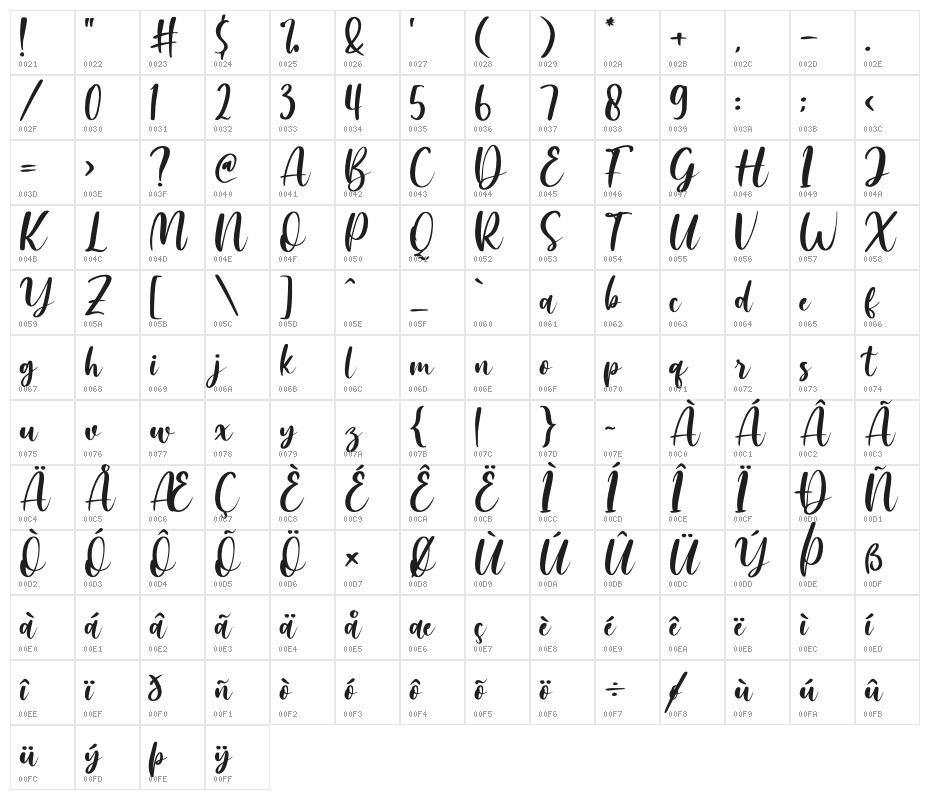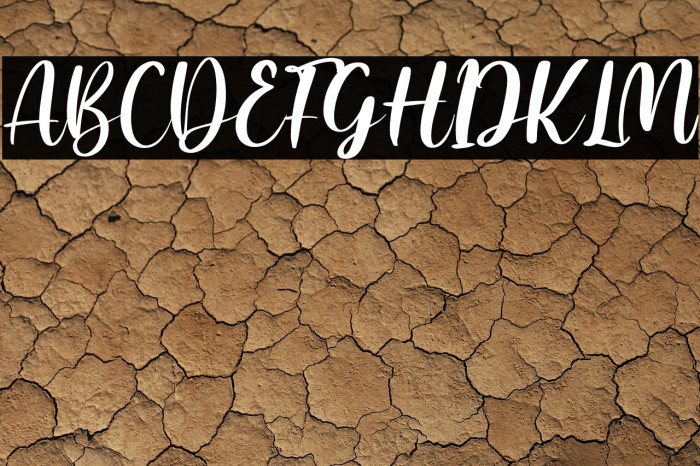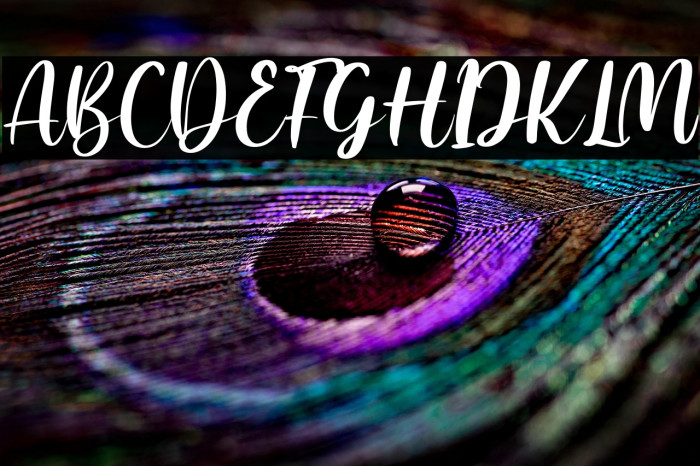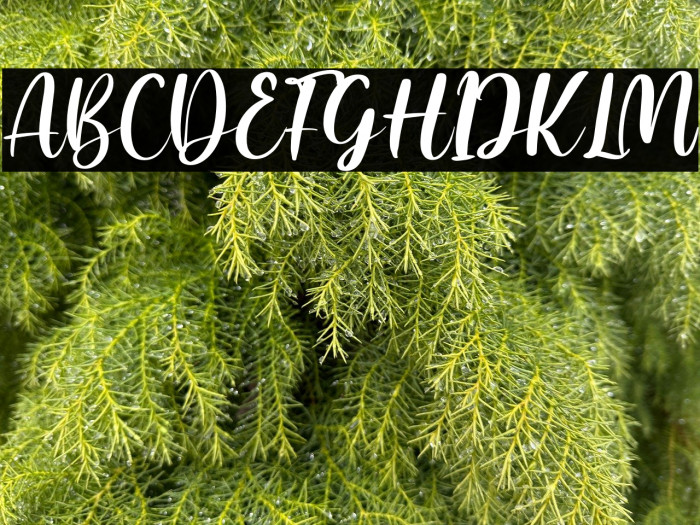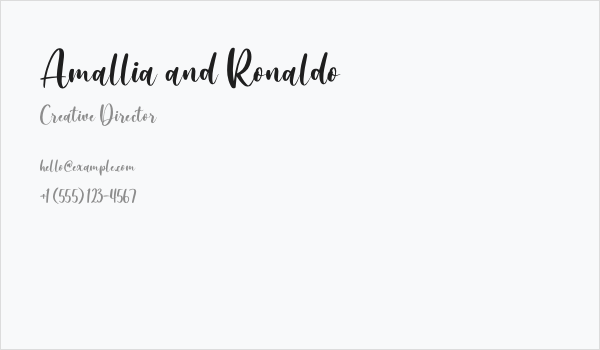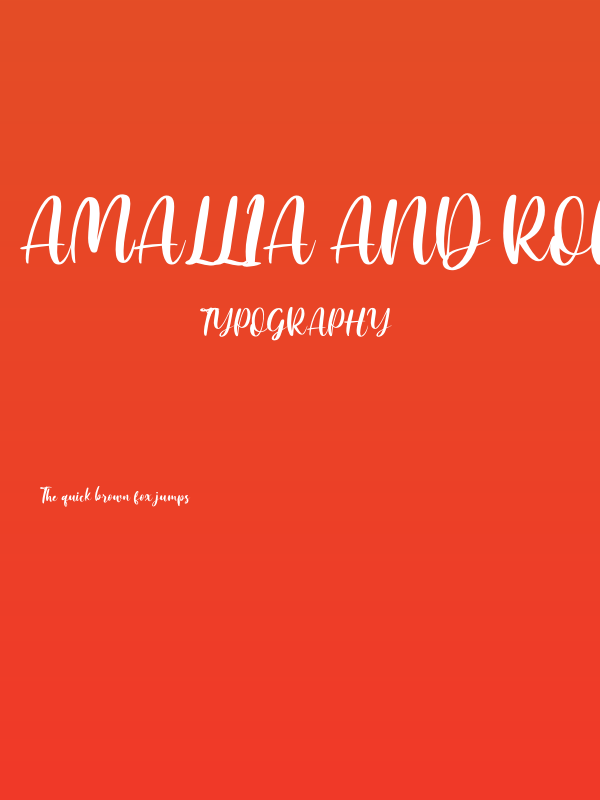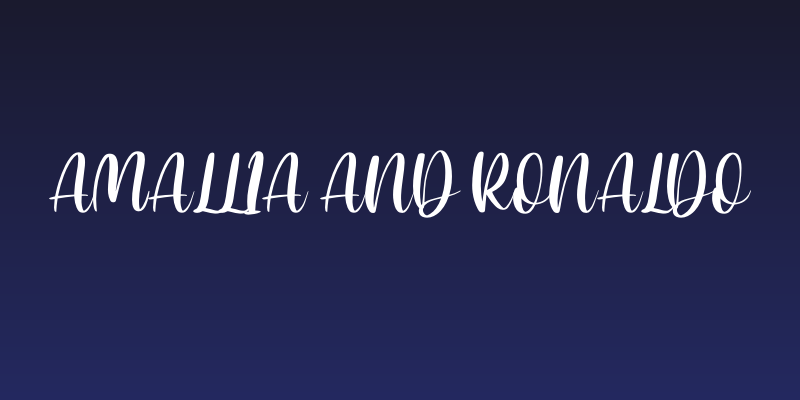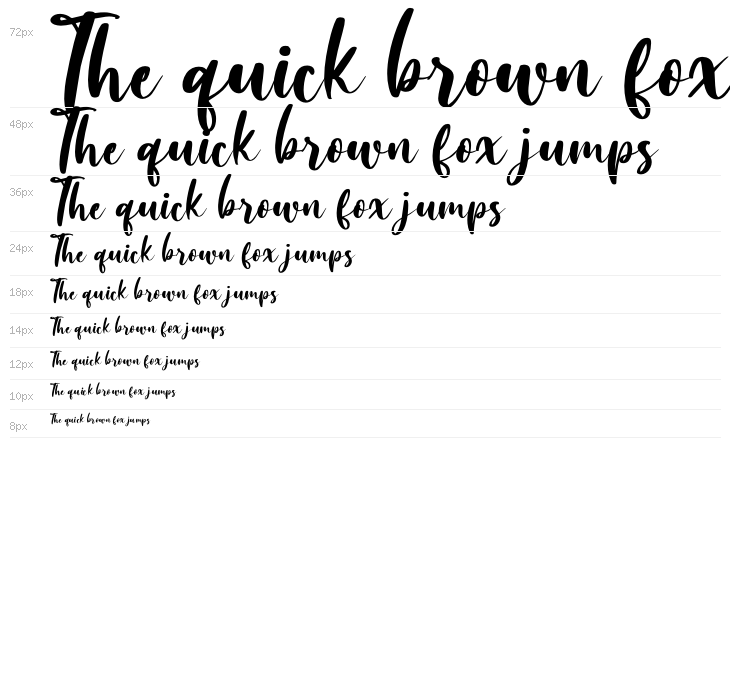
Amallia and Ronaldo Font
Amallia and Ronaldo Description
This font features a flowing, cursive style with a modern twist, characterized by its elegant and smooth letterforms. The uppercase letters are tall and slightly slanted, giving a sense of movement and grace. The lowercase letters maintain a consistent rhythm, with some letters featuring unique loops and swashes that add a decorative touch. The numerals are bold and clear, matching the overall style of the alphabet. Special characters are creatively integrated, maintaining the font's cohesive look. This font is perfect for adding a personal and stylish touch to any project.
| Proposed Projects | Ideal for wedding invitations, branding, greeting cards, and elegant packaging designs. |